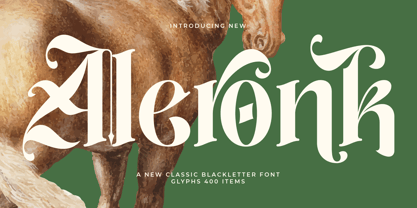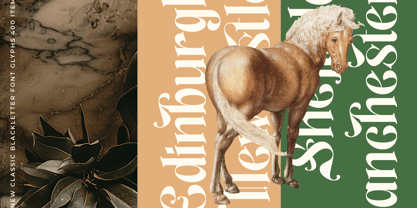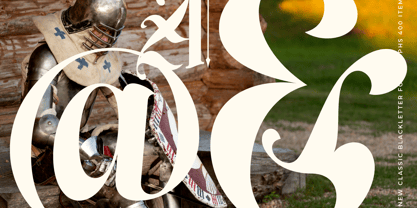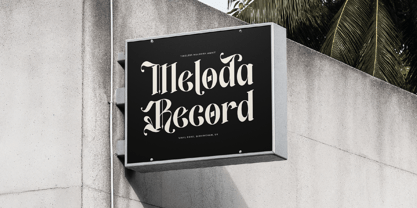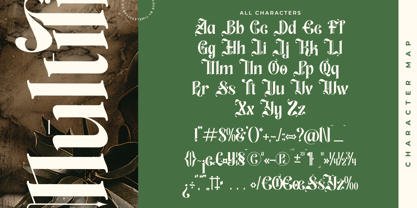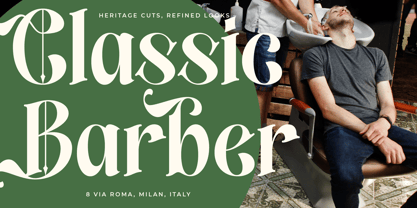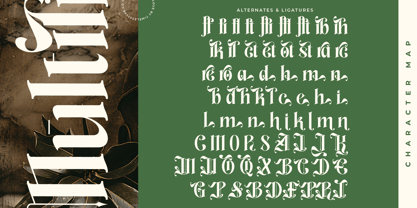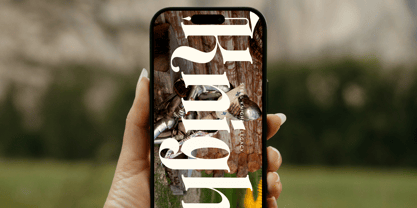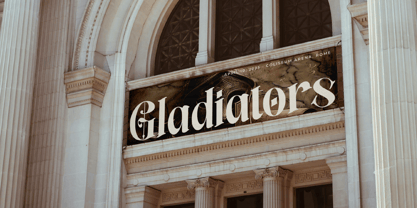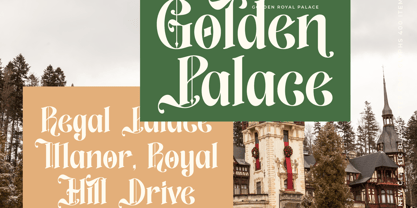
Aleronk
by Timelesstype Studio
The Aleronk Font Family was designed by Heru Utama Putra and published by Timelesstype Studio. Aleronk contains 2 styles and family package options.
Aleronk - New Classic Blackletter Font , from Timelesstype, Suitable for any projects such as: logos, branding projects, homeware designs, product packaging, mugs, quotes, posters, shopping bags, t-shirts, book covers, name card, invitation cards, greeting cards, label, photography, watermark, special events, and all your other luxury and beautiful projects that need a Luxury Serif taste.